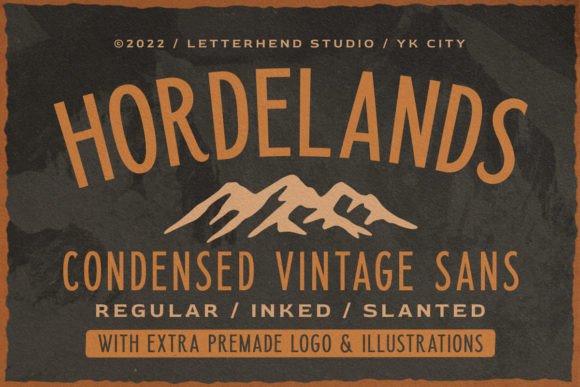
Horderlands Font: Elevate Your Designs with a Vintage Flair
In the realm of typography, fonts play a pivotal role in shaping the visual identity of a design. Among the myriad of typefaces available, Horderlands Font stands out for its unique blend of vintage aesthetics and contemporary appeal. This display condensed typeface is not just a font; it’s a design statement that can elevate your creative projects to new heights. In this article, we’ll delve into the characteristics, benefits, and applications of Horderlands Font, exploring how it can become an indispensable part of your design toolkit.
What is Horderlands Font?
Horderlands Font, often simply referred to as Hordeland, is a meticulously crafted display typeface that embodies a vintage look and feel. Its condensed style makes it perfect for designs where space is limited but impact is crucial. The font comes with a selection of logo packs, making it ready to use right out of the box for a variety of design applications.
Horderlands Font Example
Key Features of Horderlands Font
• Vintage Aesthetic: Horderlands Font boasts a classic, timeless look that pays homage to traditional typography while still feeling fresh and modern.
• Condensed Style: Its compact design allows for efficient use of space, making it ideal for headings, titles, and short texts where a significant impact is desired.
• Contemporary Appeal: Despite its vintage roots, Horderlands Font possesses a contemporary charm that aligns well with current design trends.
• Ready-to-Use Logo Packs: To streamline your design process, Horderlands Font comes with a few logo packs, enabling you to jumpstart your projects with professional-looking typography.
Applications of Horderlands Font
The versatility of Horderlands Font makes it suitable for a wide range of design applications. Whether you’re working on a branding project, creating marketing materials, or designing a website, this font can play a pivotal role in achieving your design objectives.
Branding and Logos
Horderlands Font’s vintage yet contemporary style makes it an excellent choice for branding and logo design. Its unique character can help your brand stand out and convey a sense of tradition and reliability, while still appearing modern and appealing.
Marketing Materials
For marketing materials such as brochures, flyers, and posters, Horderlands Font can be used to create compelling headings and titles that capture attention and communicate your message effectively.
Web Design
In web design, typography is crucial for user experience and aesthetic appeal. Horderlands Font can be used for website headings, titles, and even short paragraphs to add a touch of elegance and professionalism to your site.
Benefits of Using Horderlands Font
Choosing Horderlands Font for your design projects comes with several benefits:
• Unique Aesthetic: Offers a distinctive vintage look that can differentiate your designs from the competition.
• Versatility: Suitable for a wide range of design applications, from print to digital.
• Time-Efficiency: The inclusion of ready-to-use logo packs saves time and effort in the design process.
• Contemporary Appeal: Despite its vintage feel, the font remains modern and relevant to current design trends.
Tips for Using Horderlands Font Effectively
To maximize the impact of Horderlands Font in your designs, consider the following tips:
• Pair with Complementary Fonts: Use Horderlands Font for headings and pair it with a simpler font for body text to create visual hierarchy and contrast.
• Experiment with Colors: While the font itself is a focal point, experimenting with different colors can enhance its appearance and adapt it to your brand’s color scheme.
• Consider Context: Ensure that the font aligns with the overall theme and message of your design to maintain consistency and coherence.
Horderlands Font is a powerful design tool that combines a vintage aesthetic with a contemporary edge. Its condensed style, ready-to-use logo packs, and versatile applications make it an excellent choice for designers looking to add a unique touch to their projects. By incorporating Horderlands Font into your design workflow, you can create visually compelling and impactful designs that stand out in a crowded digital landscape.